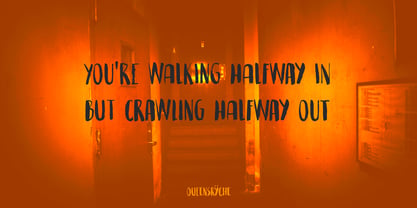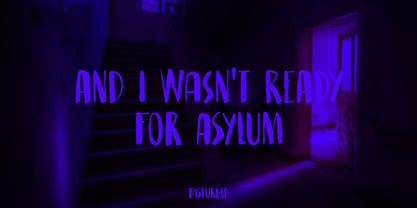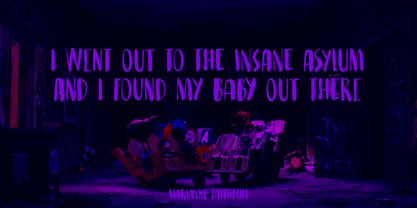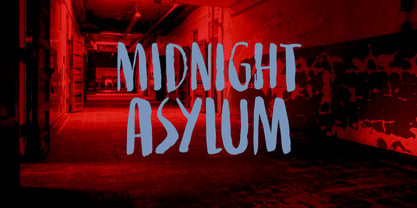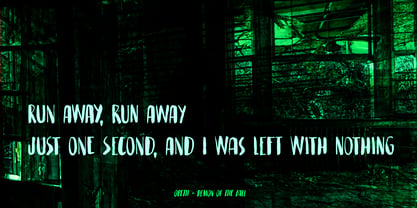
Midnight Asylum Pro
by Hanoded
The Midnight Asylum Pro Font Family was designed by David Kerkhoff and published by Hanoded. Midnight Asylum Pro contains 2 styles and family package options. More about this family
I have no fantastic story on how I came up the name to share with you. I am currently not in an asylum, nor will I be in the near future. I also finished this font way before midnight, so it is just a crazy name for a scary looking font!
Midnight Asylum was made with a pencil and Chinese ink. It comes with a full set of alternates for the lower case letters, extensive language support and a cute .notdef character, which is also the alternate asterisk glyph.
Hanoded is run by Dutchman David Kerkhoff. His fonts are a mishmash of styles, as he just creates whatever pops into his head. You will find a lot of brush fonts in his collection, as his favourite tools are brushes and Chinese ink, with cartoon style fonts and script fonts complementing his repertoire. Aside from making fonts, David occasionally guides tours in far-flung places, renovates his '30's house and tries reasoning with his wife and (teenage) kids. Not an easy task!